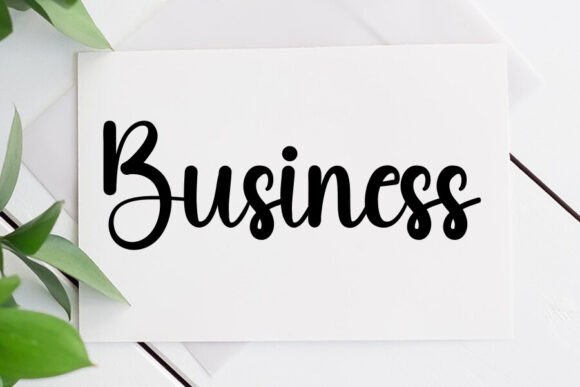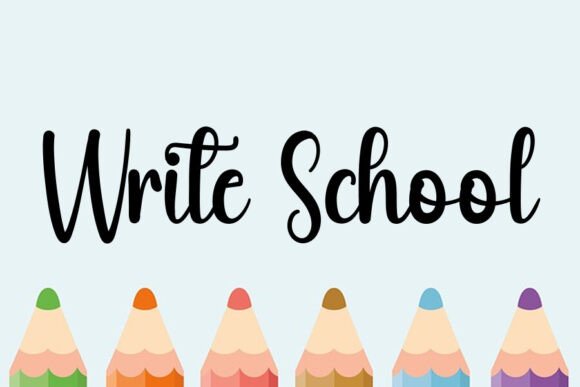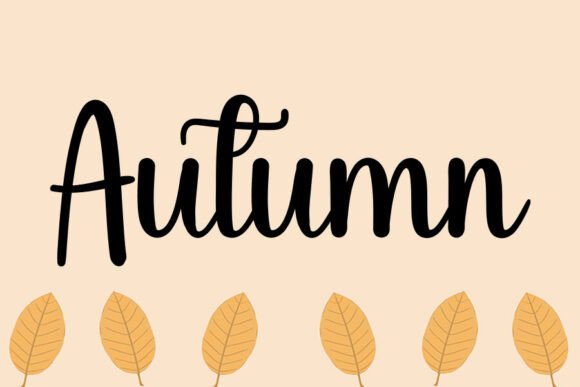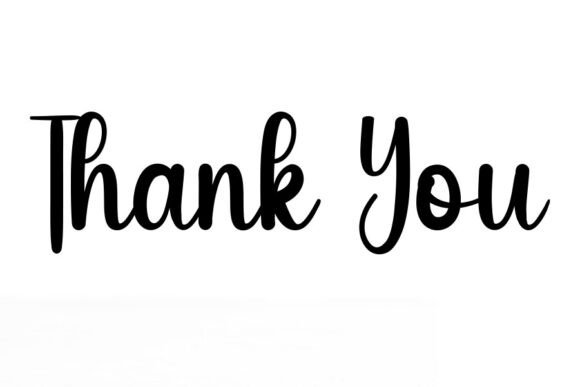
The Perfect Blend of Elegance and Whimsy: Discover Bulky Font
Have you ever stared at a blank page, desperately trying to bring your creative vision to life? The cursor blinks, taunting you with its steady rhythm, as you search for the perfect font to set the tone for your project. It’s in these moments that we discover the magic of typography, and for designers, the right font can make all the difference.
Enter Bulky Font, a sweet and cursive handwritten font that adds a touch of joy and romance to any design. This versatile font is perfect for branding, logos, wedding invitations, greeting cards, and more. Whether you’re looking to add a casual, elegant feel to your project or create a statement piece, Bulky Font is sure to impress.
- Unique Characteristic: Bulky Font’s distinctive, bold design makes it perfect for use in applications where a strong visual impact is desired, such as in advertising, entertainment, and sports branding.
- Font Weight: Bulky Font is available in a single font weight, bold, which adds to its distinctive and eye-catching appearance.
Bulky Font Review
Overall, I have mixed feelings about “Bulky Font”. On one hand, there are some great features that make it worth using. ✨ The font is highly customizable, with options to adjust the size, spacing, and even individual letter styles. This level of control is a game-changer for designers who want to create unique and eye-catching typography. ✨ Additionally, the font is incredibly versatile and can be used for a wide range of applications, from body text to headlines.
However, there are some limitations that prevent “Bulky Font” from being a top-tier choice. ⚠️ One major issue is the font’s lack of legibility at smaller sizes. While it looks great at larger sizes, the letters can become blurry and difficult to read at smaller sizes. ⚠️ This can be a problem for applications where text needs to be displayed at smaller sizes, such as on mobile devices or in print materials.
Another issue is the font’s limited character set. ⚠️ While it includes a wide range of Latin characters, it lacks support for many non-Latin languages. This can be a problem for designers who need to work with clients who speak languages other than English.
Overall, I would give “Bulky Font” 3 out of 5 stars. While it has some great features and is highly customizable, its limitations prevent it from being a top-tier choice. If you’re a designer who needs a highly customizable font with excellent legibility, you may want to consider other options.
- Pros: ✨ Highly customizable, versatile, and great for body text and headlines.
- Cons: ⚠️ Poor legibility at smaller sizes, limited character set.
Bulky Font is commonly used for:
- Emphasizing important text
- Creating a bold and eye-catching visual effect